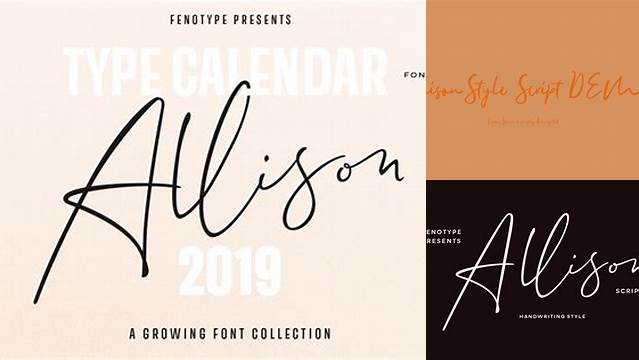
Hey guys! Ever wanted to get your hands on a cool, stylish script font without breaking the bank? Well, you're in luck! Today, we're diving deep into the world of the Allison Style Script demo font, and guess what? You can download it for free! Let’s explore everything about this font, where you can use it, and how to make the most of it in your projects.
1. What is Allison Style Script?
The Allison Style Script is a beautifully crafted font that mimics elegant handwriting. It’s designed to add a touch of sophistication and personality to your designs. Think wedding invitations, greeting cards, logos, and even social media graphics. Its flowing lines and unique character shapes make it stand out from the crowd, giving your projects a bespoke feel. The font typically includes uppercase and lowercase letters, numerals, punctuation, and sometimes a few special characters or ligatures. This makes it versatile enough to handle a variety of design needs, whether you're working on print or digital media. The beauty of the Allison Style Script lies in its ability to evoke a sense of handcrafted quality, which can significantly enhance the perceived value and appeal of your creations. It's a fantastic way to bring a personal touch to your work, making it more memorable and impactful for your audience. For designers and creatives looking to add a dash of elegance and charm to their projects, the Allison Style Script is an excellent choice.
2. Key Features of Allison Style Script
When you're choosing a font, knowing its key features is crucial. The Allison Style Script boasts several impressive elements. Its elegant calligraphy style makes it perfect for projects needing a personal and refined touch. The flowing lines and unique letterforms make it incredibly visually appealing. Also, the font usually includes a full set of characters, including uppercase and lowercase letters, numerals, and punctuation, making it versatile for various uses. Often, it comes with ligatures and alternates, adding extra flair and customization options to your designs. The smooth curves and balanced letter spacing ensure legibility, even at smaller sizes. These characteristics contribute to the overall aesthetic appeal and practicality of the font, making it a valuable asset for any designer. Using Allison Style Script, you can create designs that not only look beautiful but also communicate effectively, thanks to its readability and comprehensive character set. Whether you’re designing invitations, logos, or marketing materials, the font's features ensure that your work stands out with elegance and style.
3. Where to Use Allison Style Script Font
So, where can you actually use the Allison Style Script font? This font shines in various creative projects. It’s ideal for wedding invitations, adding a touch of romance and sophistication. Think about using it for greeting cards to give a personal and heartfelt feel. Logos can benefit from its unique style, making brands memorable and elegant. Social media graphics also look fantastic with this font, especially for posts that need a bit of flair. Furthermore, it works great on blog headers, giving your site a polished and professional appearance. In print materials like brochures and flyers, it adds a touch of class that catches the eye. Even in digital designs, the Allison Style Script can enhance websites, e-books, and online advertisements. Its versatility allows it to adapt to different themes and aesthetics, making it a valuable tool for designers and creatives across various fields. Whether you are aiming for a modern or vintage look, this font can be tailored to fit your vision, ensuring your designs are both visually appealing and effective in communicating your message.
9. Pairing Allison Style Script with Other Fonts
To really make the Allison Style Script shine, pairing it with the right fonts is essential. It’s an elegant script font, so you'll want to pair it with something that offers a strong contrast. A classic sans-serif font like Open Sans or Montserrat works wonders for body text, providing a clean and readable counterpoint to the script’s flair. For headings, consider using a bold serif font such as Playfair Display or Merriweather, which adds a touch of sophistication without overshadowing the script. Avoid pairing Allison Style Script with overly decorative fonts, as this can create a cluttered and overwhelming design. The key is to balance the script's elegance with a font that provides clarity and structure. Experiment with different combinations to find what works best for your project, always keeping readability and visual harmony in mind. By carefully selecting complementary fonts, you can create designs that are both stylish and functional, making the most of the Allison Style Script's unique charm.